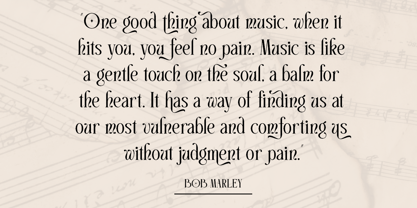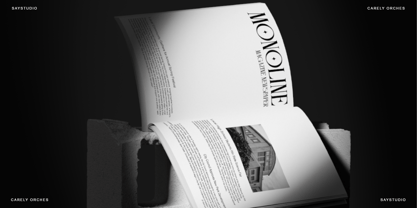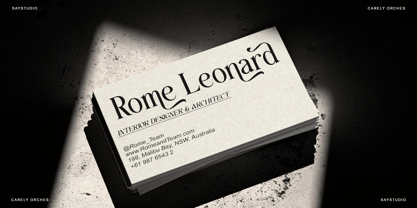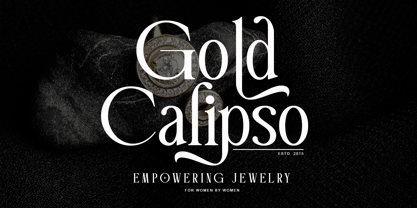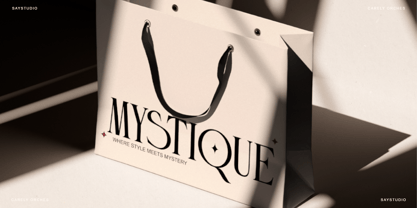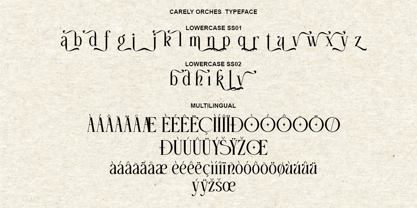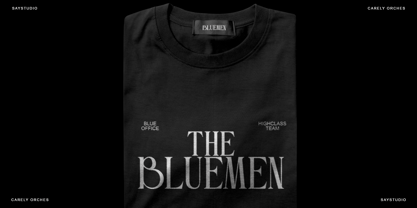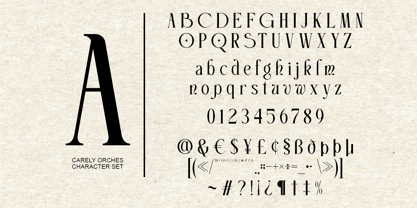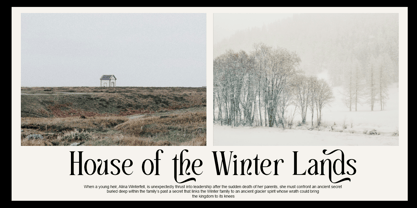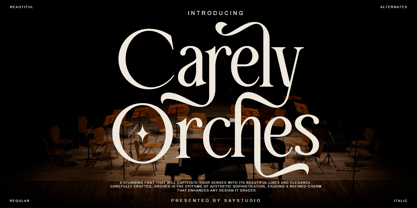
Carely Orches
by Say Studio
The Carely Orches Font Family was designed by Mussyayin and published by Say Studio. Carely Orches contains 2 styles and family package options. More about this family
Carely Orhes is a classy display serif with a lot of style. Using unique character alternates to show its class. Carely Orches comes with an italic style to match. Perfect for fashion work, magazines, or just classy logo designs. Open up your glyphs panel and explore all the characters!
- Carely Orches
- Carely Italic
- Stylistic Alternates
- Multilingual Support